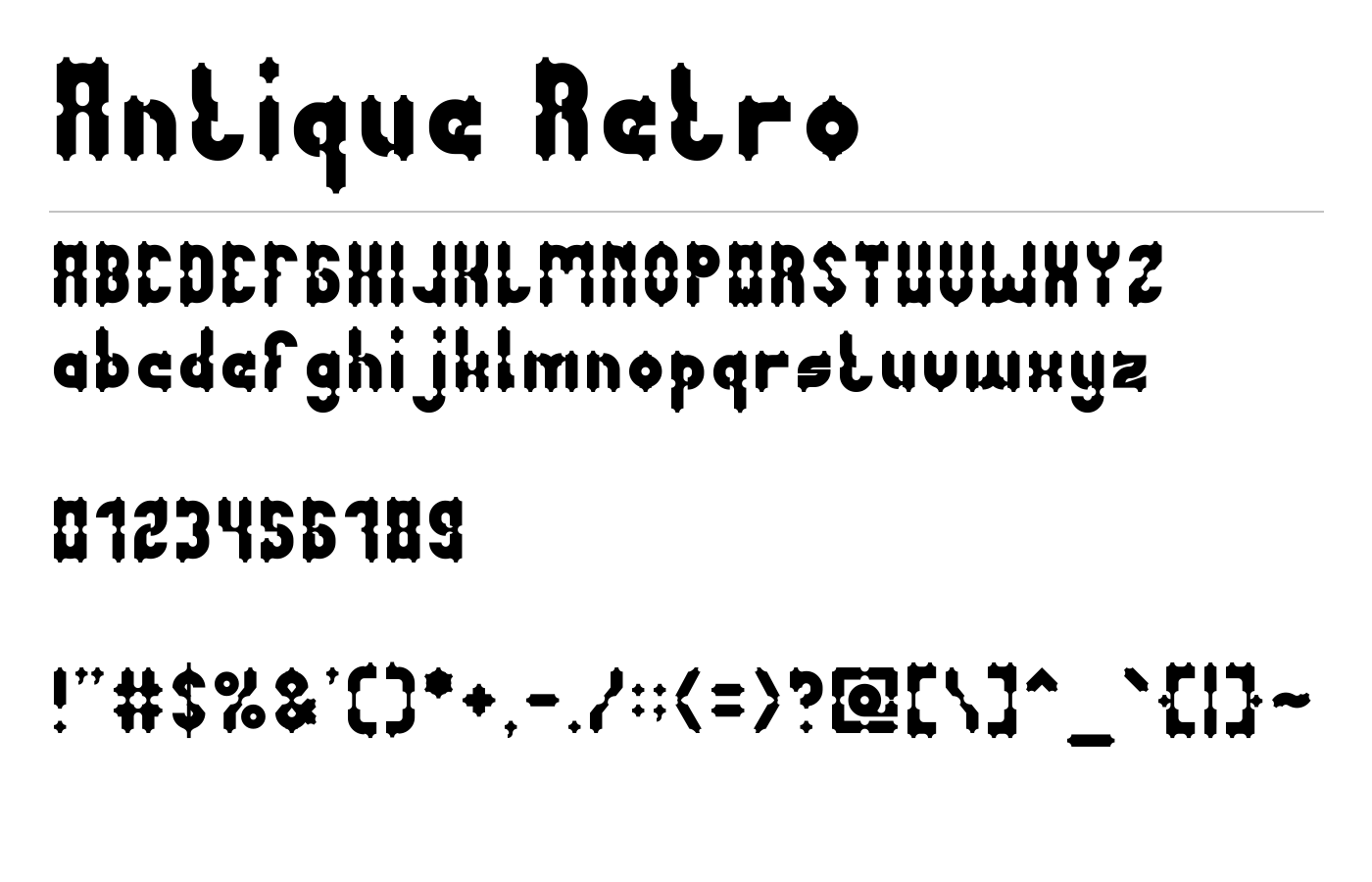
Antique Retro is a bold, decorative serif font with a strong vintage vibe, featuring thick strokes combined with unique geometric cutouts and blocky serifs that create a distinctive, old-fashioned yet quirky look. Its heavy weight and high contrast make it ideal for eye-catching headlines, logos, and branding projects that aim to evoke a nostalgic or playful atmosphere. This font works best in designs where a memorable retro style is desired, such as posters, signage, and packaging for specialty products.
Antique Retro Font
About Antique Retro Font